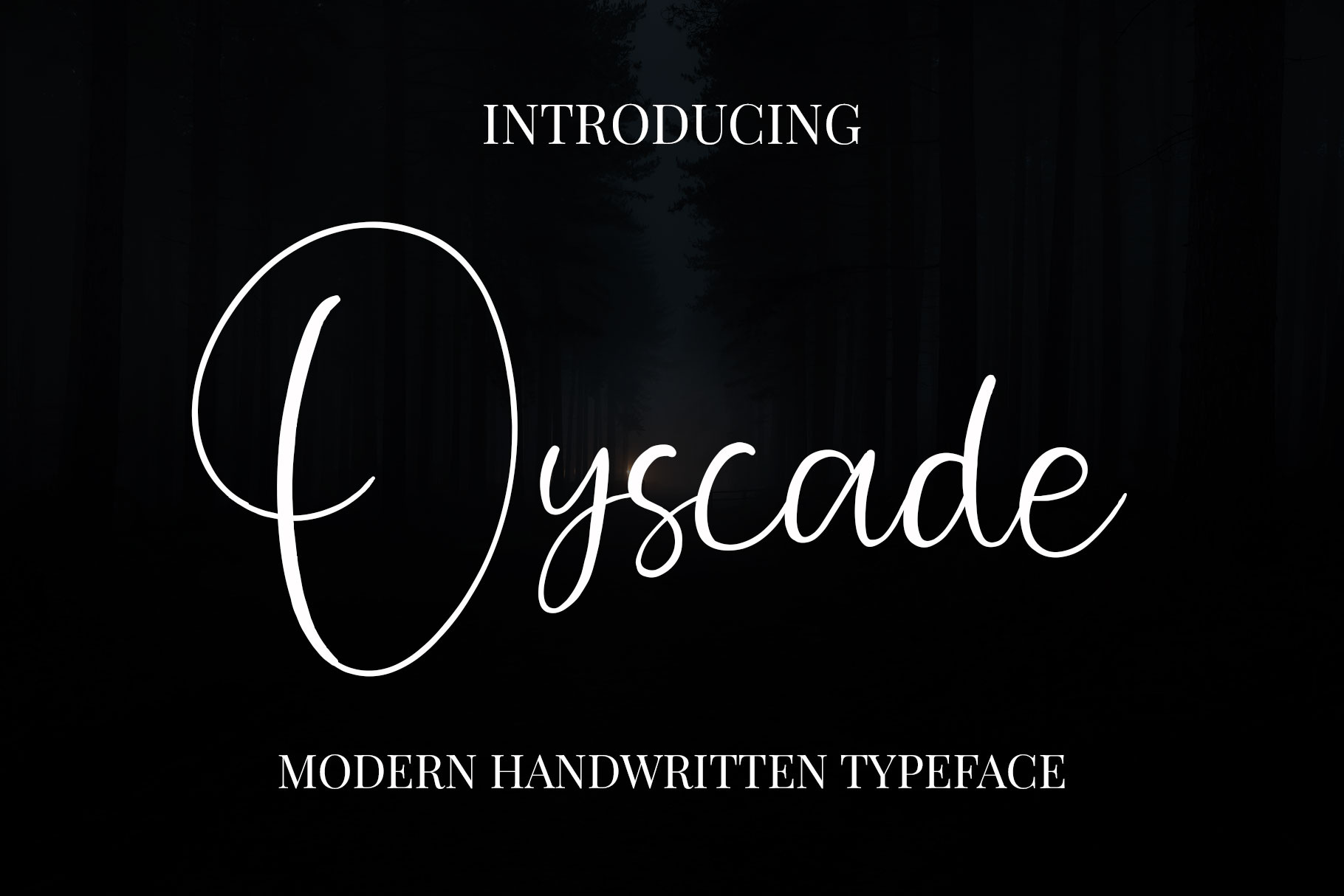
Oyscade handwritten font
Oyscade font with new style, this font will perfect for many different project ex: quotes, logo, blog header, poster, banding, letter, invitation, stationery, etc.